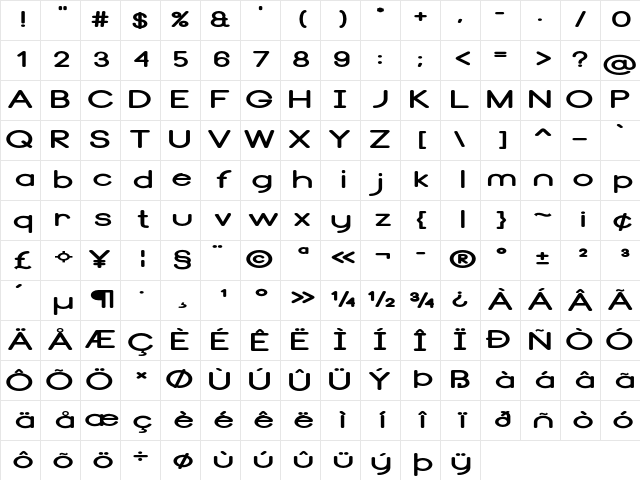
Pekabo Extra-expanded Regular
Style: Extra-expanded Regular
Pekabo Family
Pekabo Extra-expanded Regular
Design Context for Pekabo
Pekabo is a composed and adaptable typeface that performs quietly and consistently across a wide range of design contexts.